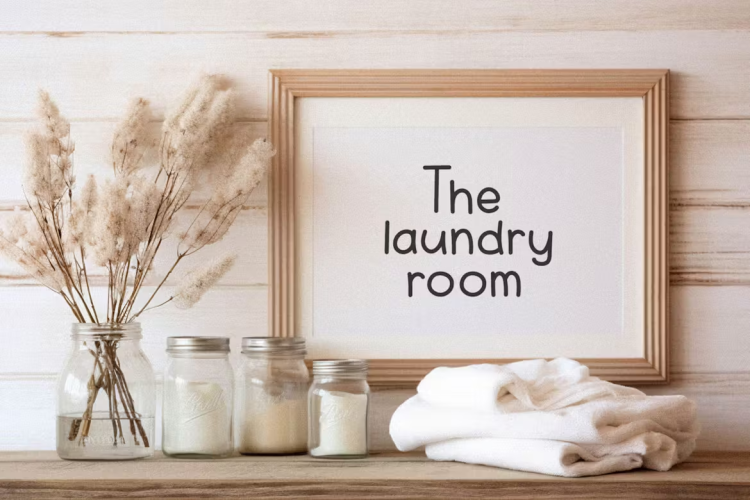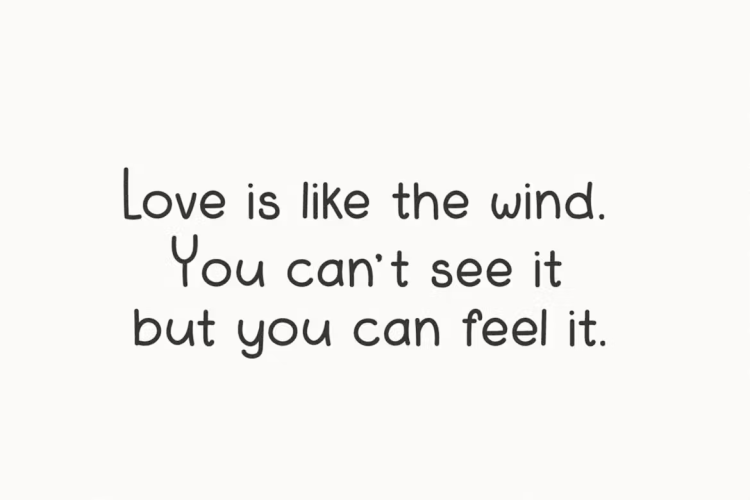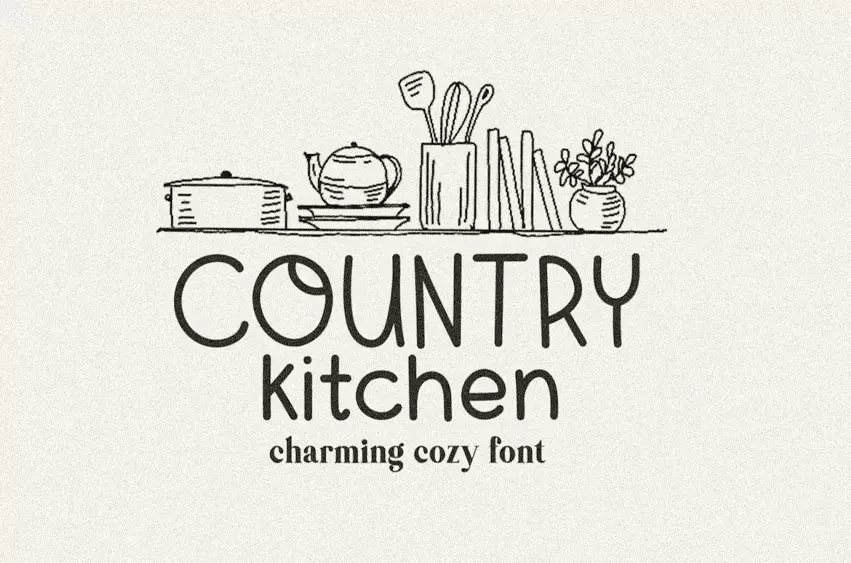
Country Kitchen Font
Country Kitchen Font is a charming farmhouse handwritten font. It is perfect for creating stickers, quotes, prints, Cricut projects, sublimation designs, and SVG files.
Where Country Kitchen Font works best
Country Kitchen Font brings a personal, handwritten warmth to invitations, menus and place cards.
Craft brands — coffee, cosmetics, bakery — use scripts like Country Kitchen Font for signature-style logos and labels.
Pair Country Kitchen Font with a plain sans for quotes, stories and Pinterest pins that feel handmade.
What is Country Kitchen Font good for?